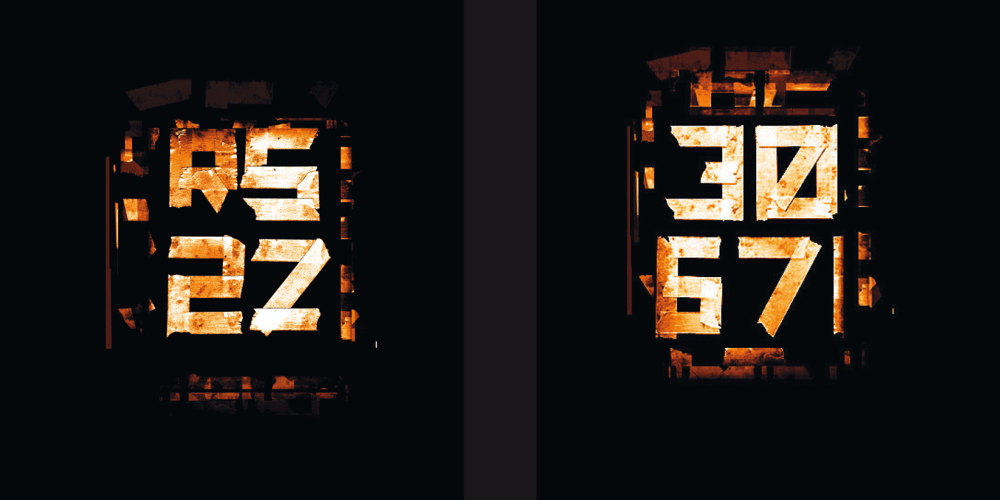
Rip TAPE Font Family was designed by Manuel Viergutz and published by TypoGraphicDesign. Rip TAPE contains 2 styles and family package options. CONCEPT/CHARACTERISTICS The handmade, dirty and yet modern character of the font was designed with analog tape on paper and later digitized. The motto is sticky, wrinkled and rough APPLICATION AREA The dirty, rough and fancy font „rip TAPE“ would look good at display size for poster, flyer, comics and graphic novel lettering and logos. Headlines in magazines or websites, packaging, music covers or webbanner etc. TECHNICAL SPECIFICATIONS Headline Font | Display Font | Grunge/DIY Font „rip TAPE“ OpenType Font with & 78 glyphs & 2 styles (regular, fixed).